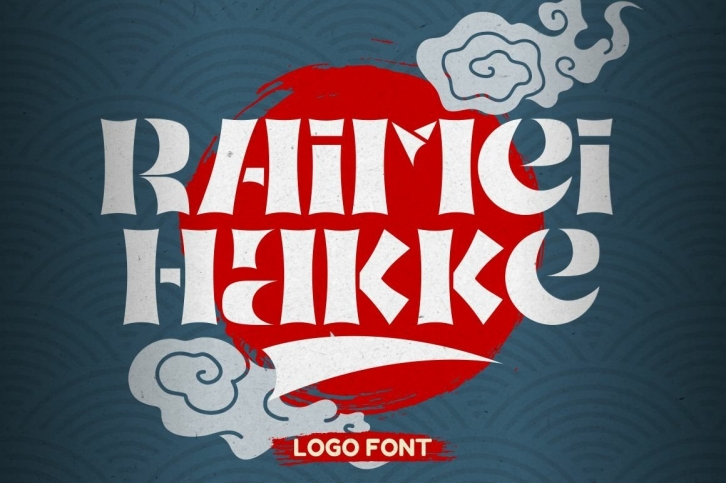
Raimei Hakke is a beautiful font that was designed by PutraCetol Studio. It's a great choice for designers and creatives who need such a font. It was released on March 26, 2022 and the file size is 4.11 MB. Raimei Hakke may give a more youthful, expressive and casual look to your project. It is a very beautiful, refined, elegant, and high-quality font.